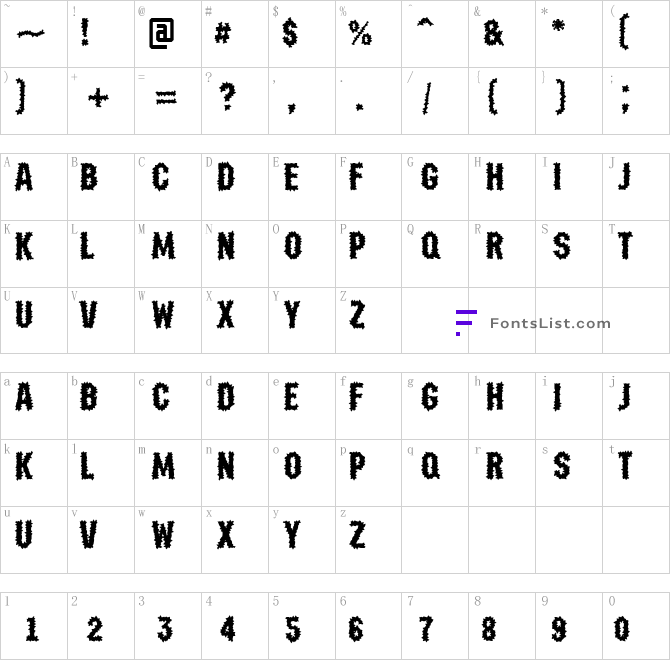
- Font Name:a_MachinaNovaBrk
a_MachinaNovaBrk.ttf is a very beautiful artistic font, a_MachinaNovaBrk.ttf is widely used in the design and printing of various books and pictures,a_MachinaNovaBrk.ttf has a strong visual impact,a_MachinaNovaBrk.ttf is a commonly used font in newspapers, magazines and books, and is used in posters, e-commerce Poster design, store design, logo design, font design and other fields.a_MachinaNovaBrk.